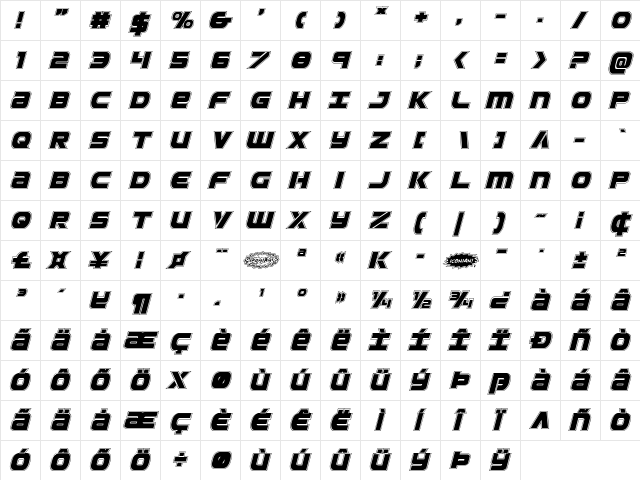
Ozda Academy Italic Italic
Design Context for Ozda Academy Italic Typeface
Ozda Academy Italic is a composed and adaptable typeface that performs quietly and consistently across a wide range of design contexts. Its italic angle brings a sense of urgency and motion to the letterforms.
Pro Tip: Use Ozda Academy Italic for emphasis, pull quotes, and subheadings where its slanted energy can add rhythm to the layout.